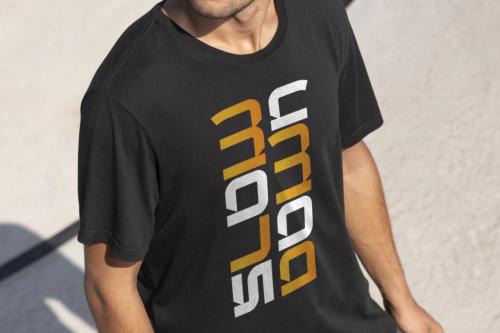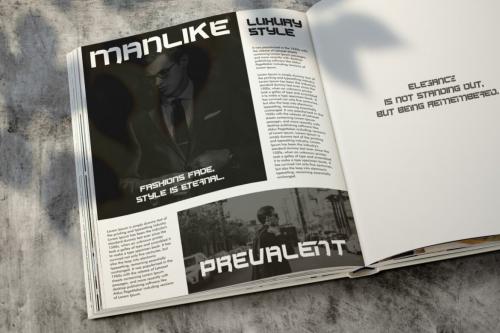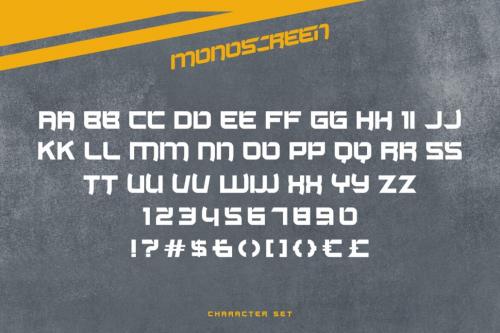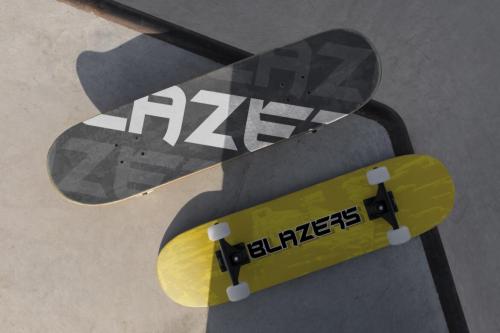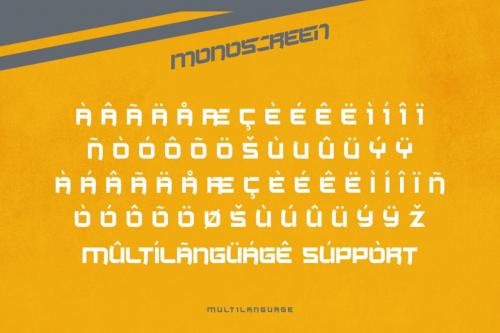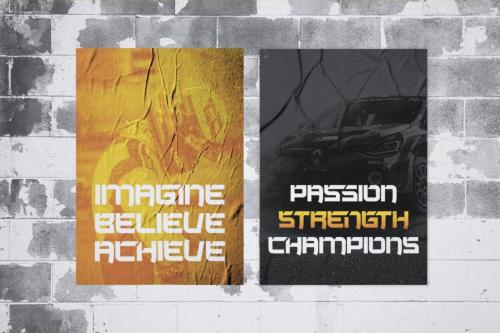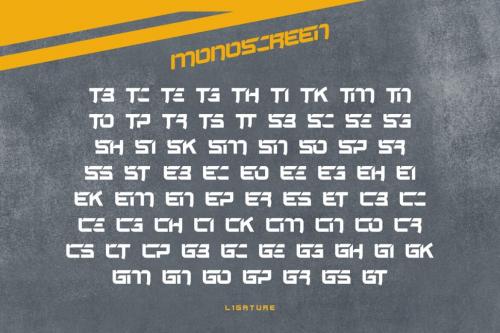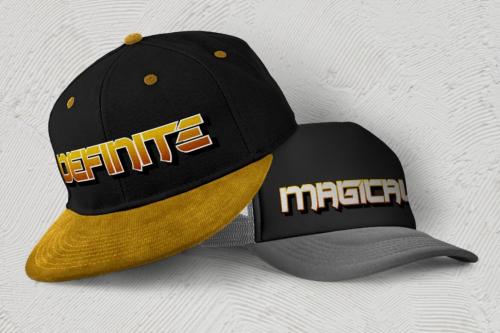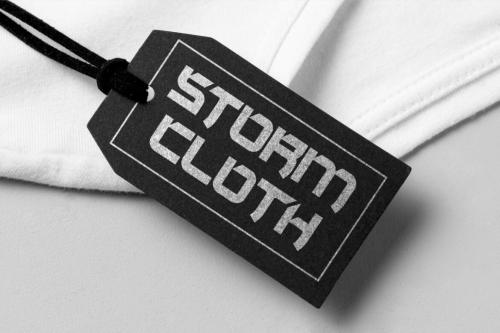
Monoscreen Font is a modern futuristic font with sporty vibes that inspired by the many sports team. It’s authentic display font is suitable for any branding project like logo, automotive, billboard, e-sport, fashion, handcrafts, label, logos, magazine, movie, poster, print materials, racing, skateboard design, t-shirt printing, title, website, and many more.
Monoscreen Font includes All caps letters, Numbers, Punctuation, Symbol, Ligature and Multilingual characters. PUA Encoded Characters – Fully accessible without additional design software. Simple installations also Works on Windows and MAC. Accessible in the Adobe Illustrator, Adobe InDesign, Adobe Photoshop, Corel Draw, and Microsoft Word.